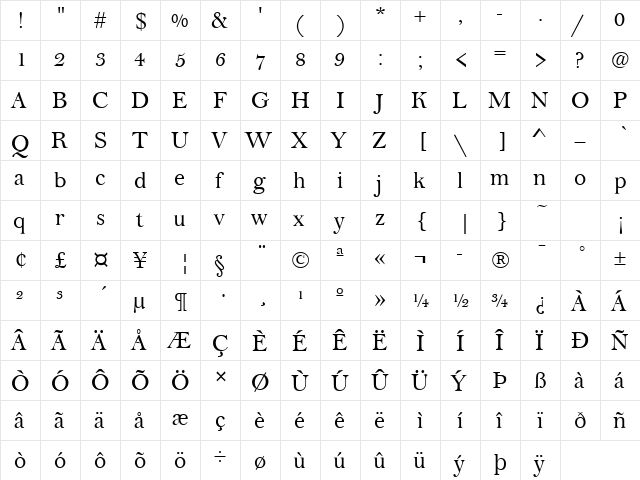
Beau Regular
Design Context for Beau Typeface
Beau takes a measured approach to typography — its balanced proportions and neutral character make it a reliable workhorse for both digital and print work.